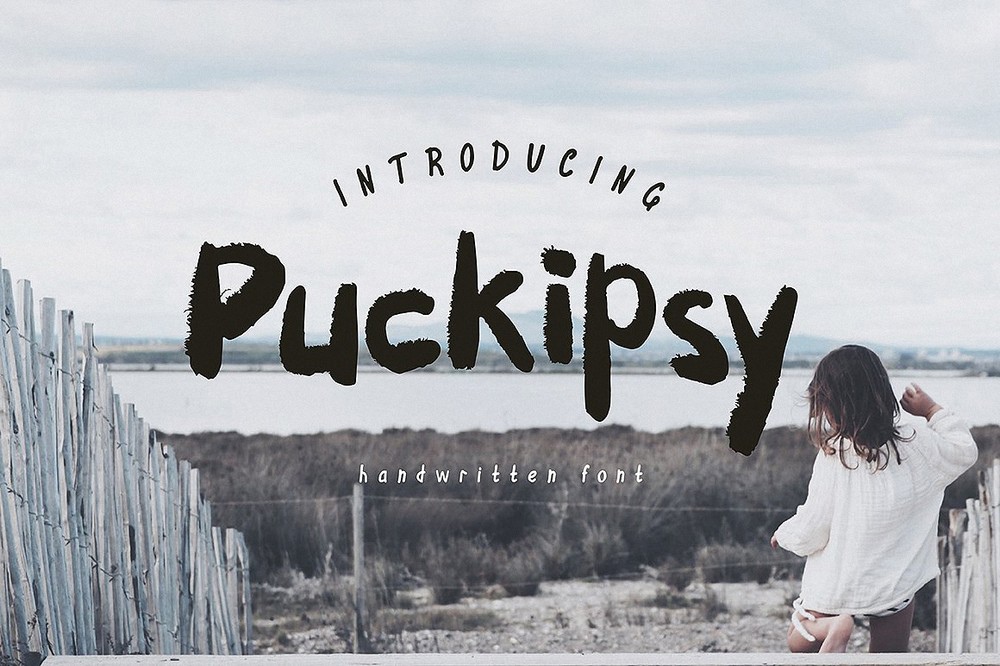
Puckipsy Font
Puckipsy Font is perfect for playful branding, children's products, whimsical logos, creative workshops, fun social media content, imaginative book covers, toy packaging, educational materials, quirky greeting cards, and artistic craft projects.
Puckipsy Font is exciting because it captures the essence of pure imagination and playful creativity with its delightfully quirky letterforms that spark joy and wonder in every design application. Its whimsical character design combines artistic flair with childlike spontaneity, making it perfect for brands that want to communicate fun, creativity, and magical experiences that appeal to both children and the young-at-heart.
The Puckipsy Font family includes Regular weight, Bold variation, Outline styles, Shadow effects, Playful alternates, Creative flourishes, Whimsical ornaments, and Fantasy elements, providing designers with comprehensive tools for creating imaginative typography that brings stories and dreams to life through expressive letterforms.
Puckipsy Font Free Download brings magical creativity to design projects that celebrate imagination and wonder, featuring hand-crafted letterforms that embody the spirit of artistic play and creative expression. This enchanting typeface combines artistic authenticity with playful functionality, creating the perfect solution for brands and projects that value creativity, imagination, and the power of visual storytelling.
Whether you're designing children's products, developing creative brand identities, producing educational materials, or creating imaginative content experiences, Puckipsy Font provides the whimsical foundation needed for memorable creative communication. Its playful character makes it particularly effective for toy companies, children's publishers, creative workshops, and artistic service providers targeting families and creative communities.
Perfect for children's book illustrators, toy designers, creative educators, and imaginative brand developers, this font offers the artistic qualities essential for successful creative market positioning. The typeface's versatile nature ensures consistent charm across both digital creative platforms and traditional artistic applications.
Puckipsy Font includes comprehensive creative character sets, imagination-inspired design elements, and playful spacing that ensures delightful results in artistic design applications. Its whimsical approach to typography makes it invaluable for brands celebrating creativity and imagination. Unleash creative magic with Puckipsy Font Free Download and discover typography that truly sparks imagination.